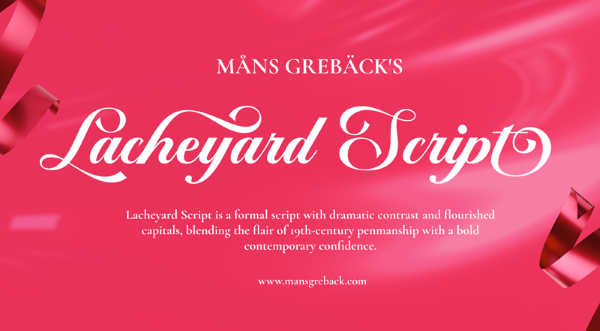
Lacheyard Font is a calligraphic script typeface by Måns Grebäck that carries the elevated, composed elegance this designer is known for. Its flowing letterforms feel genuinely pen-drawn — graceful and confident without ever tipping into excess — a luxury script font that rewards every project it touches with timeless cursive refinement.
With 974 glyphs including alternate characters and ligatures, it offers serious typographic flexibility across wedding stationery, luxury branding, editorial headers and any context where polished sophistication is the goal. Free for personal use, with a commercial license available from the designer’s website.
Designer: Måns Grebäck
Style: Script, Calligraphy, Cursive